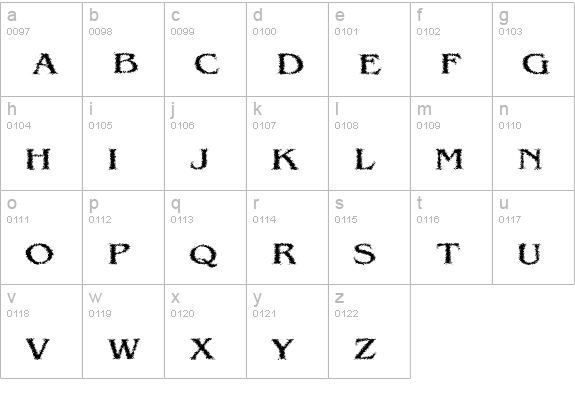
VTC VictorianLint SC Font Details
Introducing VTC VictorianLint SC font - a stunning typeface that beautifully captures the elegance and sophistication of the Victorian era. This exquisite font is meticulously designed with intricate details and ornate flourishes, reminiscent of the exquisite craftsmanship prevalent during the Victorian period. VTC VictorianLint SC font is the perfect choice for projects that require a touch of vintage charm and a timeless appeal. Its delicate letterforms and graceful curves effortlessly transport your designs back to a bygone era, adding a touch of nostalgia and sophistication. But here's the best part - VTC VictorianLint SC font is absolutely free! Yes, you read it right. This remarkable font is freely available to download at FontsMarket.com. Now, you can add a touch of Victorian elegance to your designs without breaking the bank. Whether you're working on invitations, wedding stationery, logos, branding, or any other creative project, VTC VictorianLint SC font will elevate your designs to new heights of beauty and grandeur. With its extensive character set and versatile nature, this font offers endless possibilities for expressing your creativity and bringing your vision to life. So, what are you waiting for? Don't miss out on the opportunity to enhance your designs with the timeless charm of VTC VictorianLint SC font. Visit FontsMarket.com today and download this exquisite font for free. Let your creativity flourish and transport your audience to the enchanting world of the Victorian era.